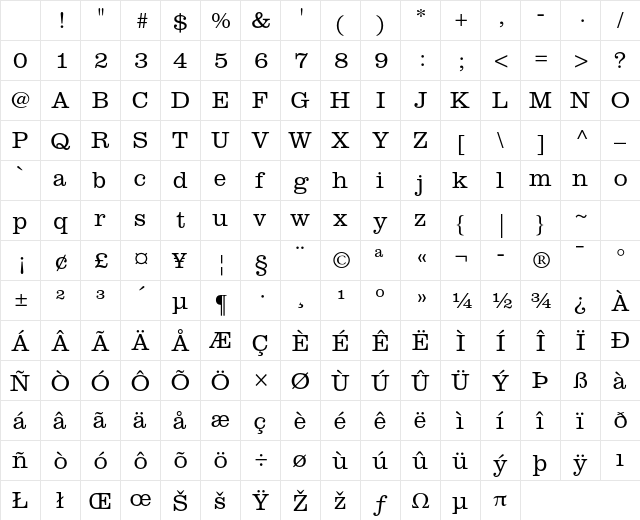
Complete Clarendon LT Std Light glyph index. Displaying only characters natively supported by Clarendon LT Std Light font.
Clarendon LT Std features prominent, blocky serifs that give it a confident, grounded presence - equally at home in editorial settings and bold branding work. Its slender proportions lend an understated elegance to any composition.
Pro Tip: Use Clarendon LT Std for headlines and subheadings where its slab serifs can make an impression. It also holds up well in mid-size body copy thanks to its sturdy construction.